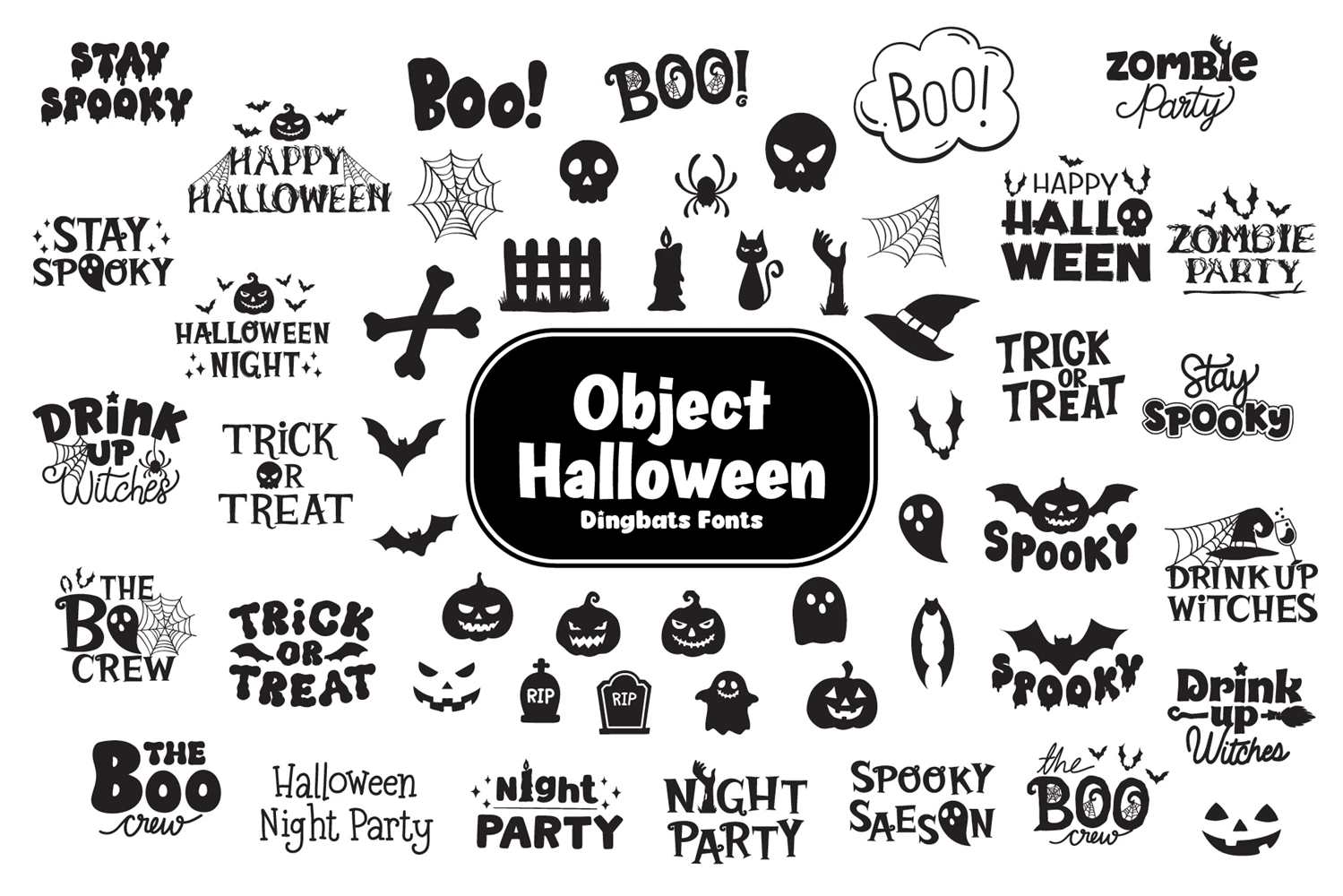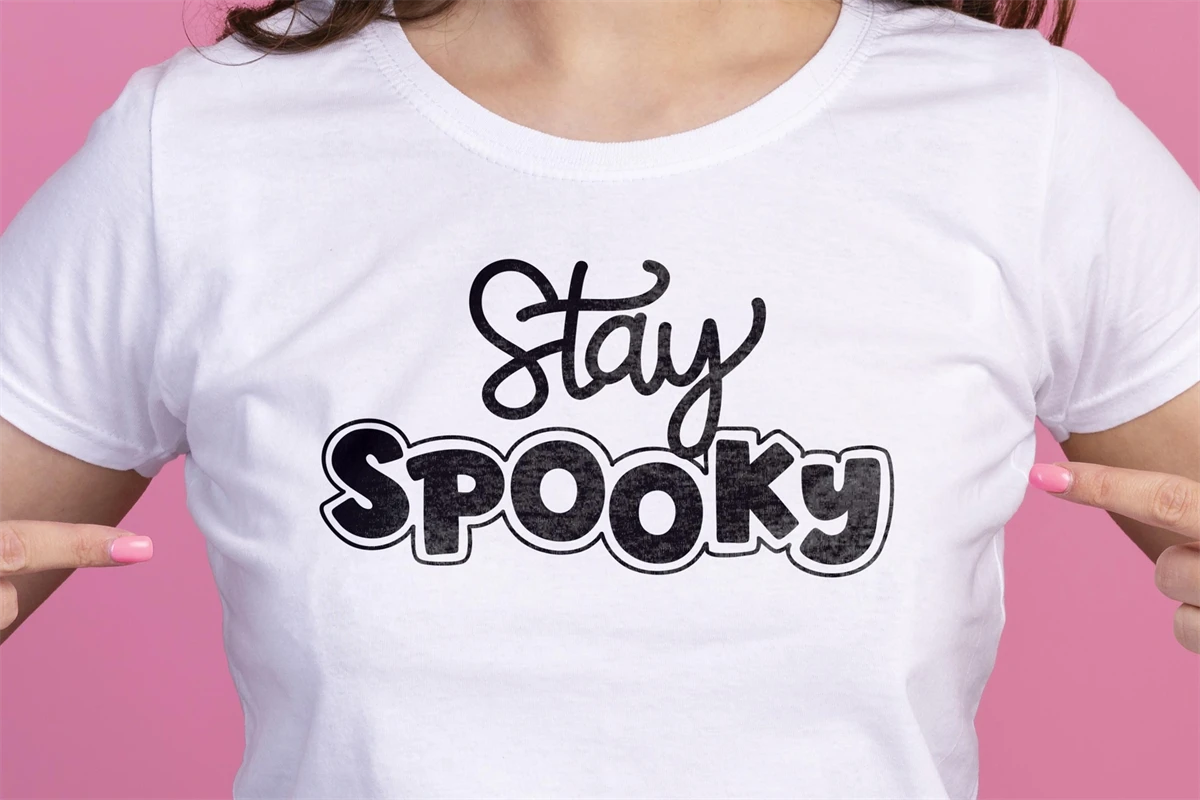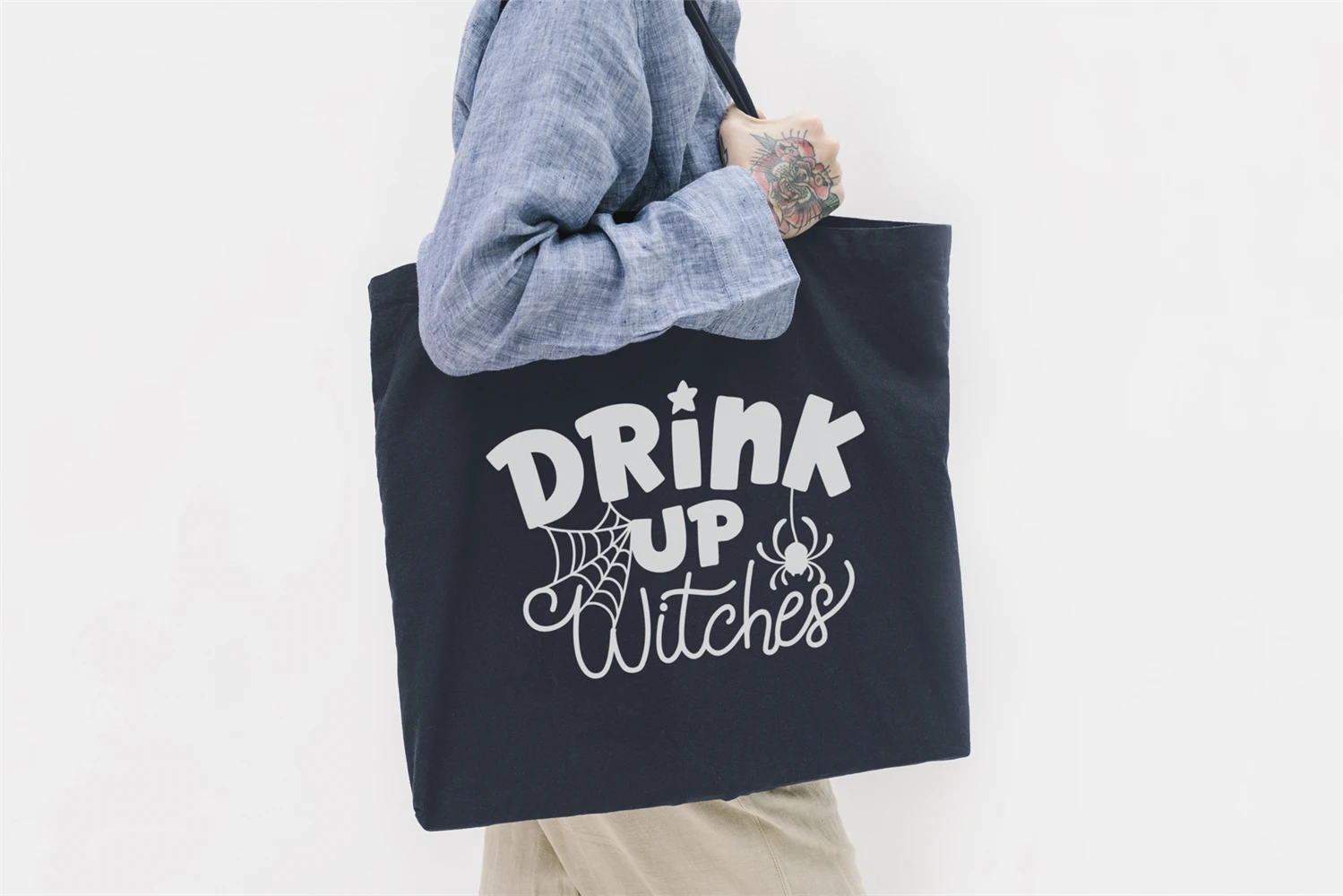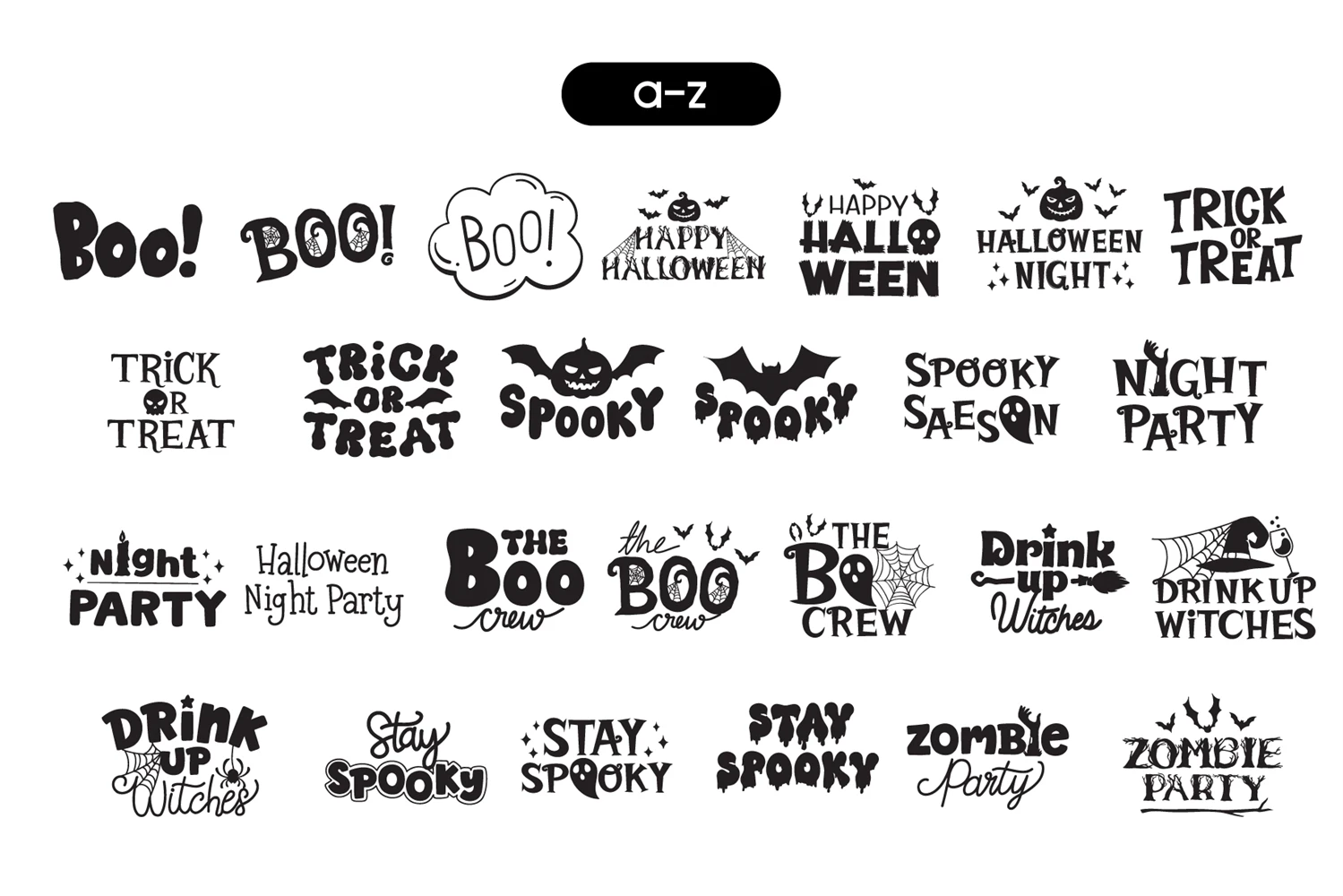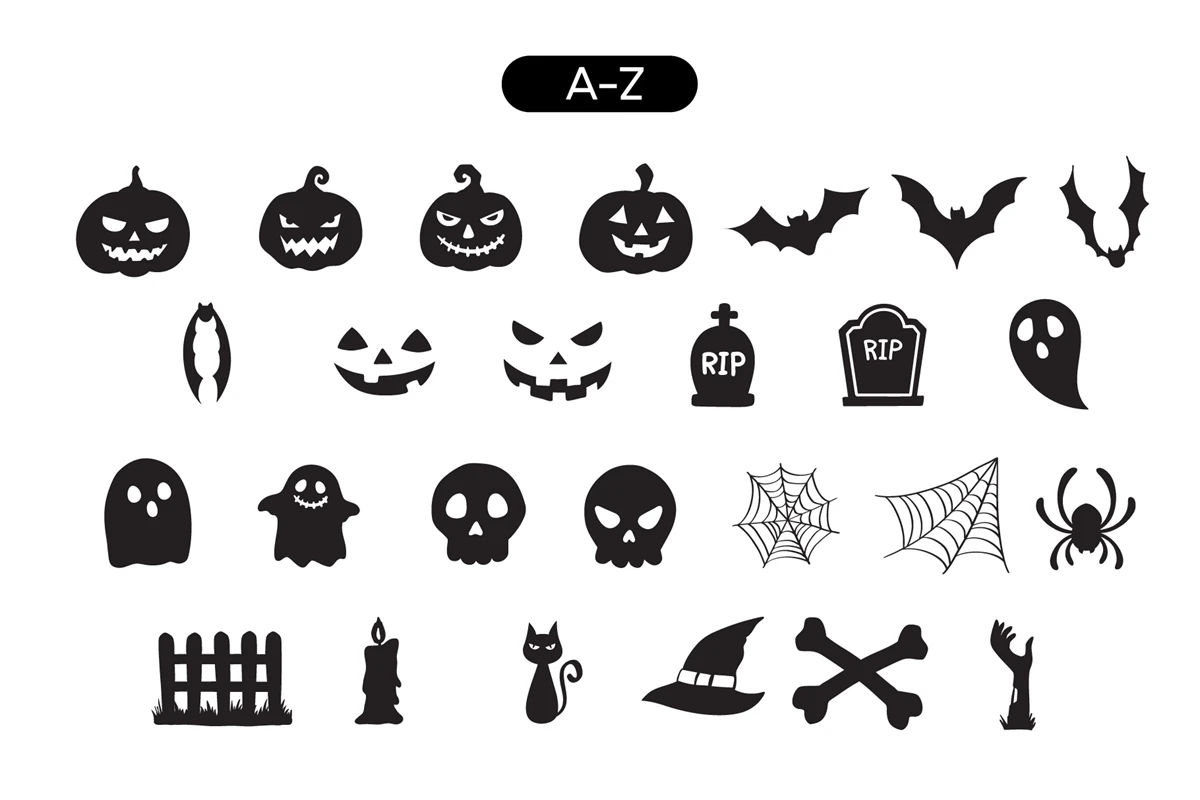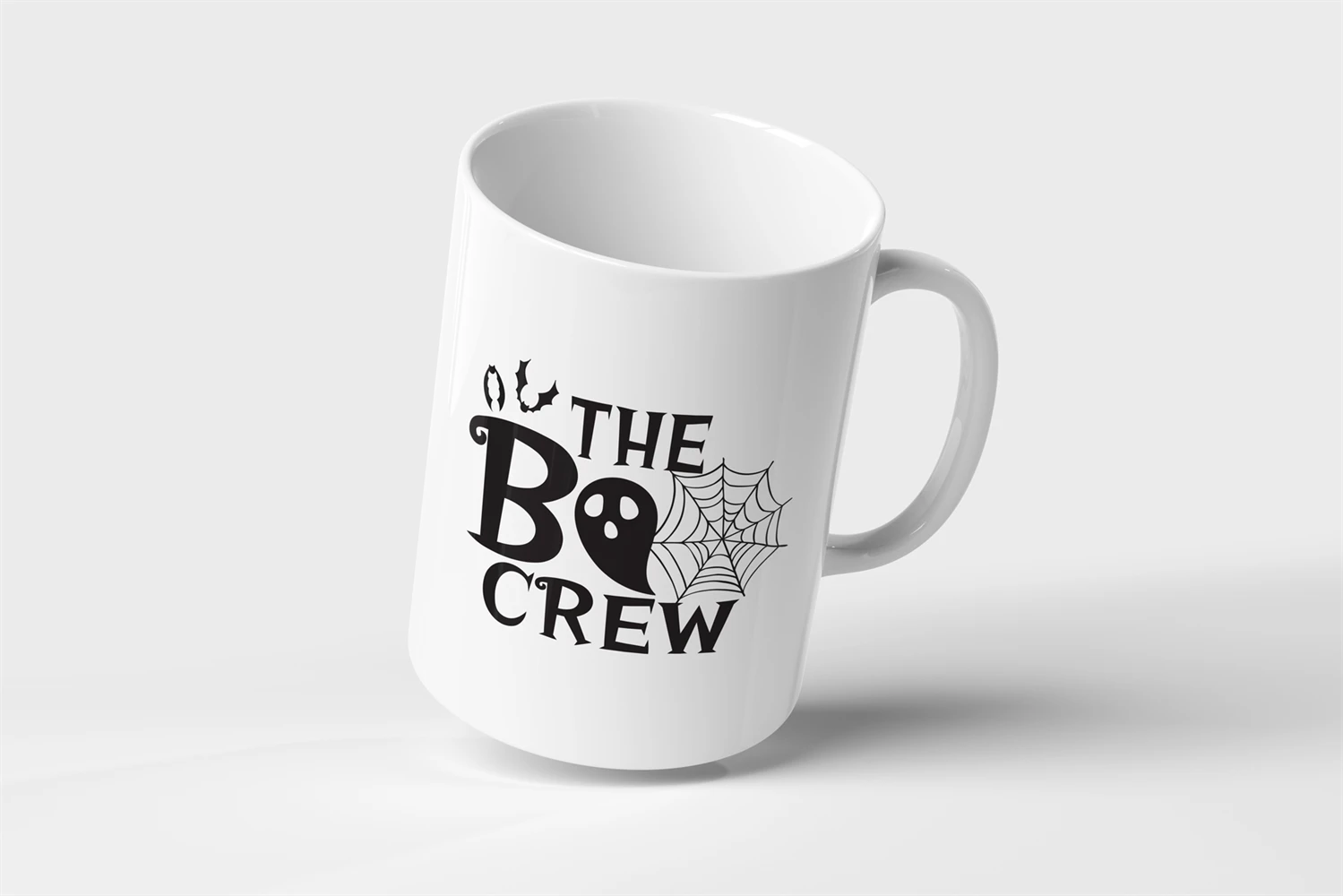
Object Halloween Fonts is a Dingbats typeface designed for ease of use, all you have to do is select a-z or A-Z and you'll get a ready-to-use design. Suitable for those who want comfort no more struggling with complex design software or spending hours on intricate designs. Object Halloween Fonts makes crafting a fun and straightforward process.